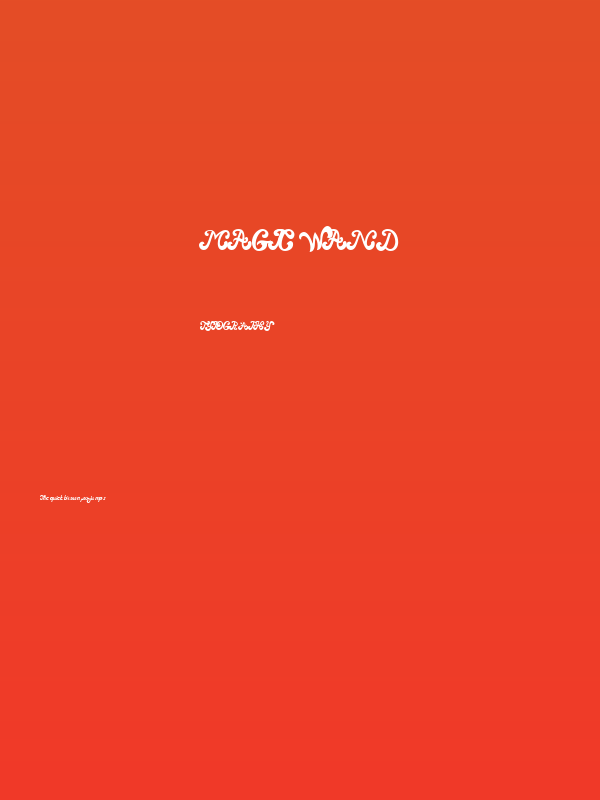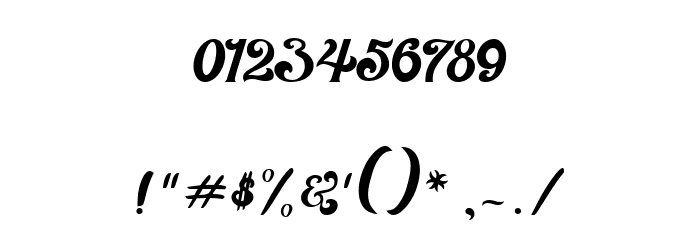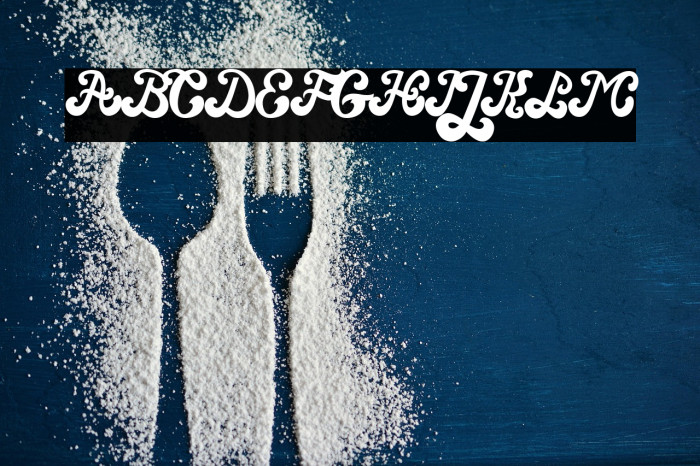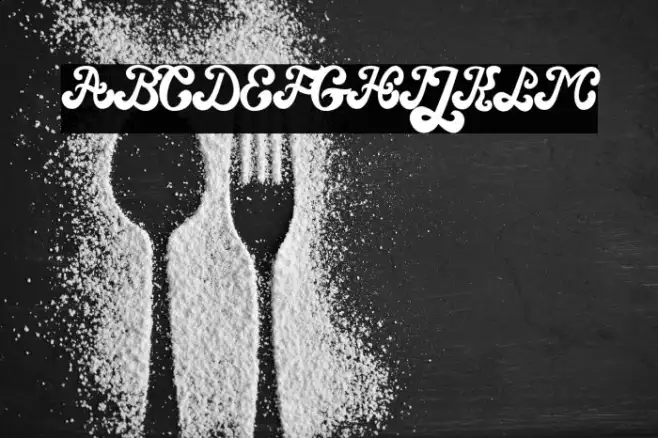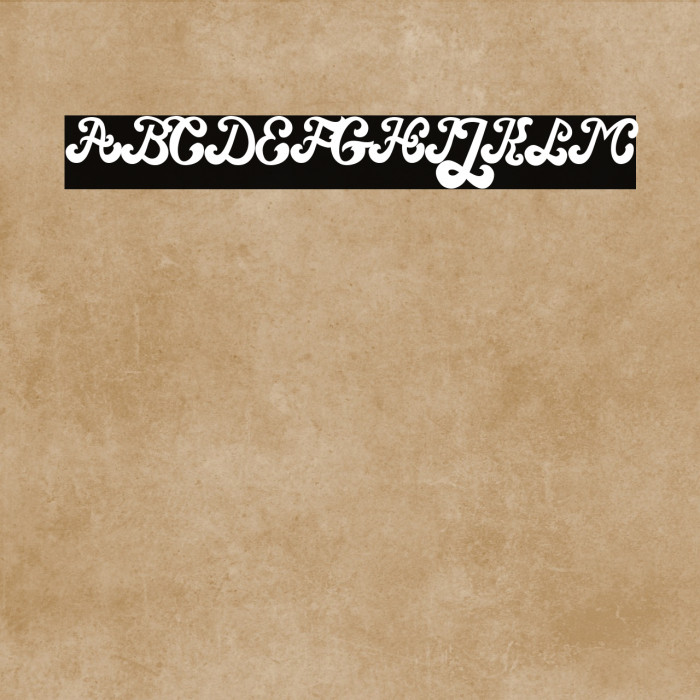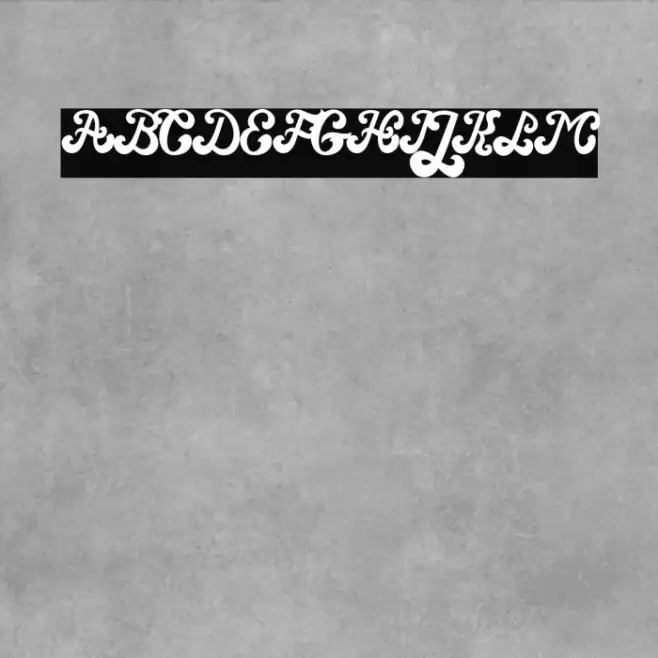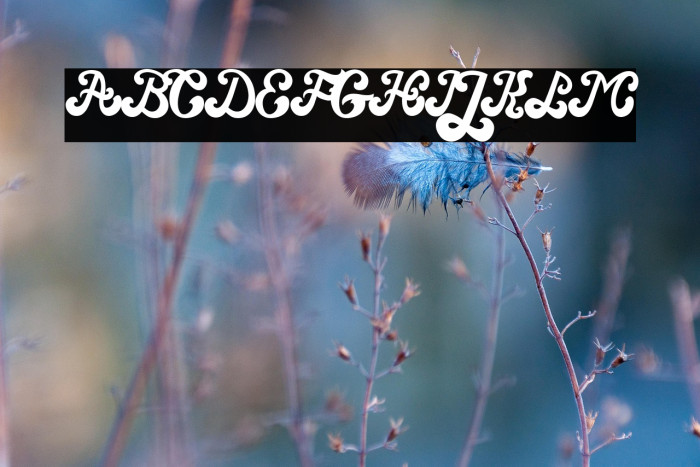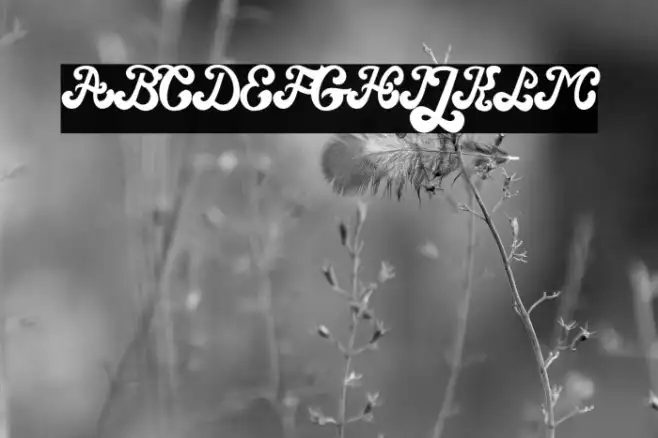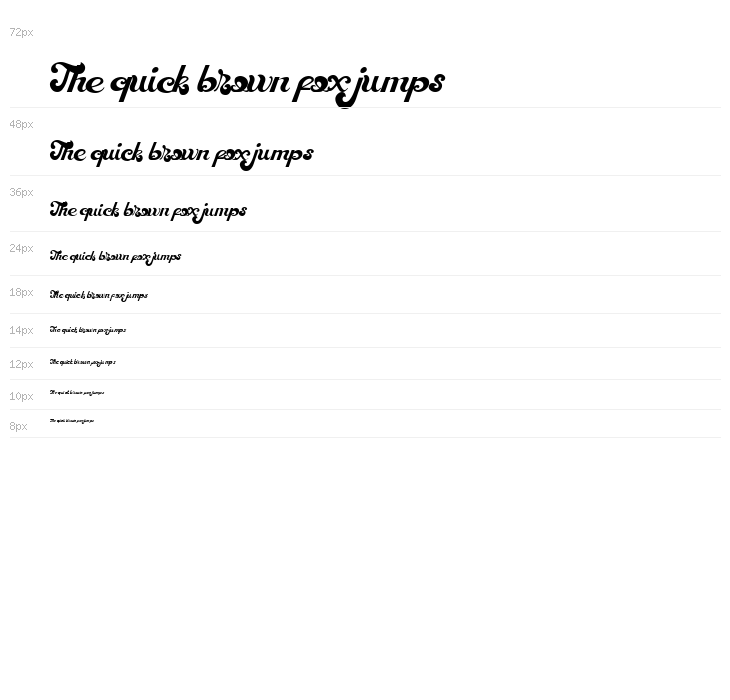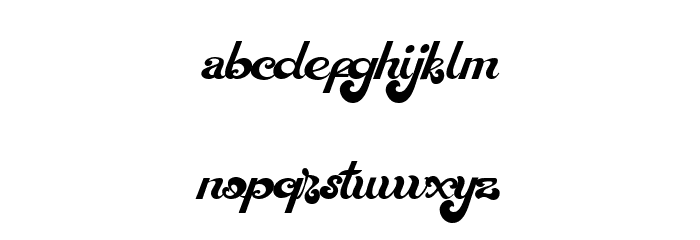
Magic Wand Font
Magic Wand Description
This font features a playful and whimsical design, characterized by its bold and flowing script style. The letters are intricately connected, creating a sense of movement and fluidity. The uppercase letters are particularly ornate, with exaggerated curves and loops that add a decorative flair. The lowercase letters maintain a consistent style, with smooth transitions and rounded edges. The numbers and special characters are equally stylized, ensuring a cohesive look across all elements. This font is ideal for projects that require a touch of elegance and creativity.